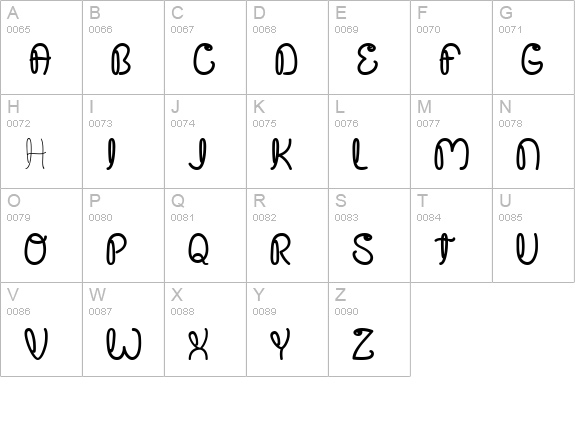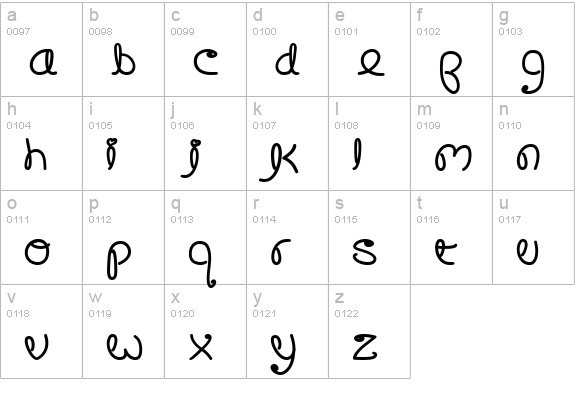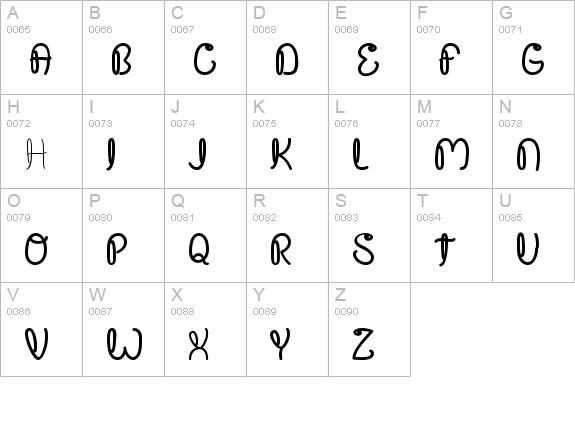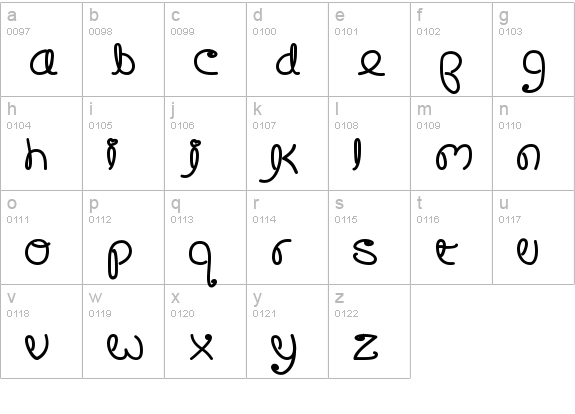
Crushed Out Girl Sharpie Font Details
Introducing Crushed Out Girl Sharpie font, a unique and expressive typeface that exudes a sense of creativity and edge. This bold and energetic font is perfect for making a statement in your designs, whether you're working on posters, logos, or social media graphics. With its hand-drawn style and rough edges, Crushed Out Girl Sharpie font adds a touch of raw authenticity to any project. The best part? Crushed Out Girl Sharpie font is available for free download at FontsMarket.com. You can easily incorporate this eye-catching font into your work without breaking the bank. So go ahead and unleash your creativity with Crushed Out Girl Sharpie font today!